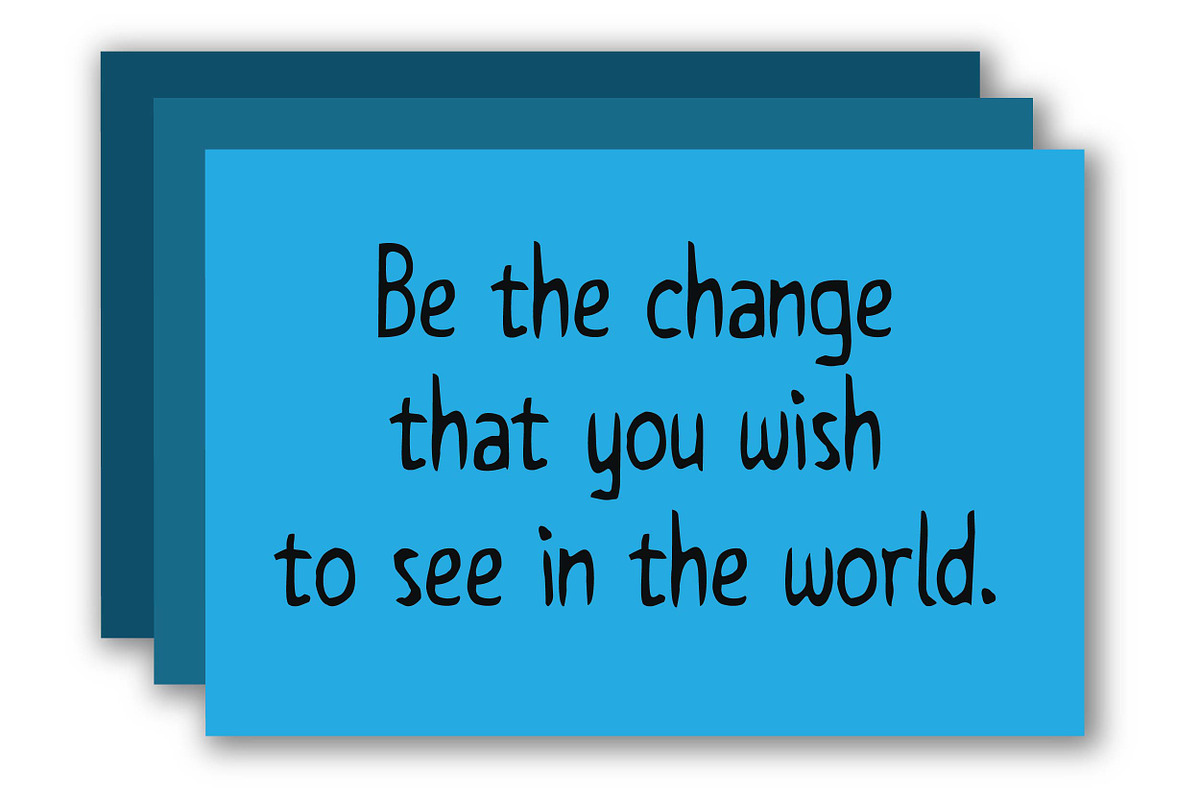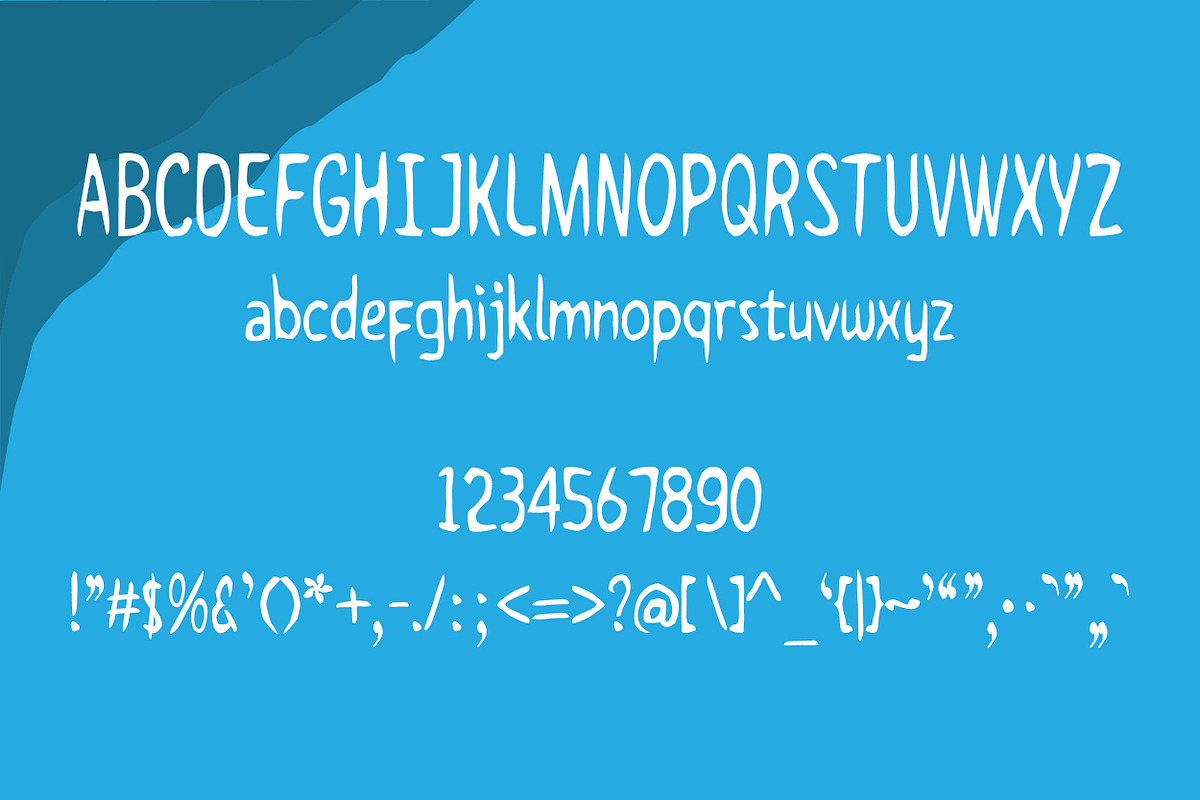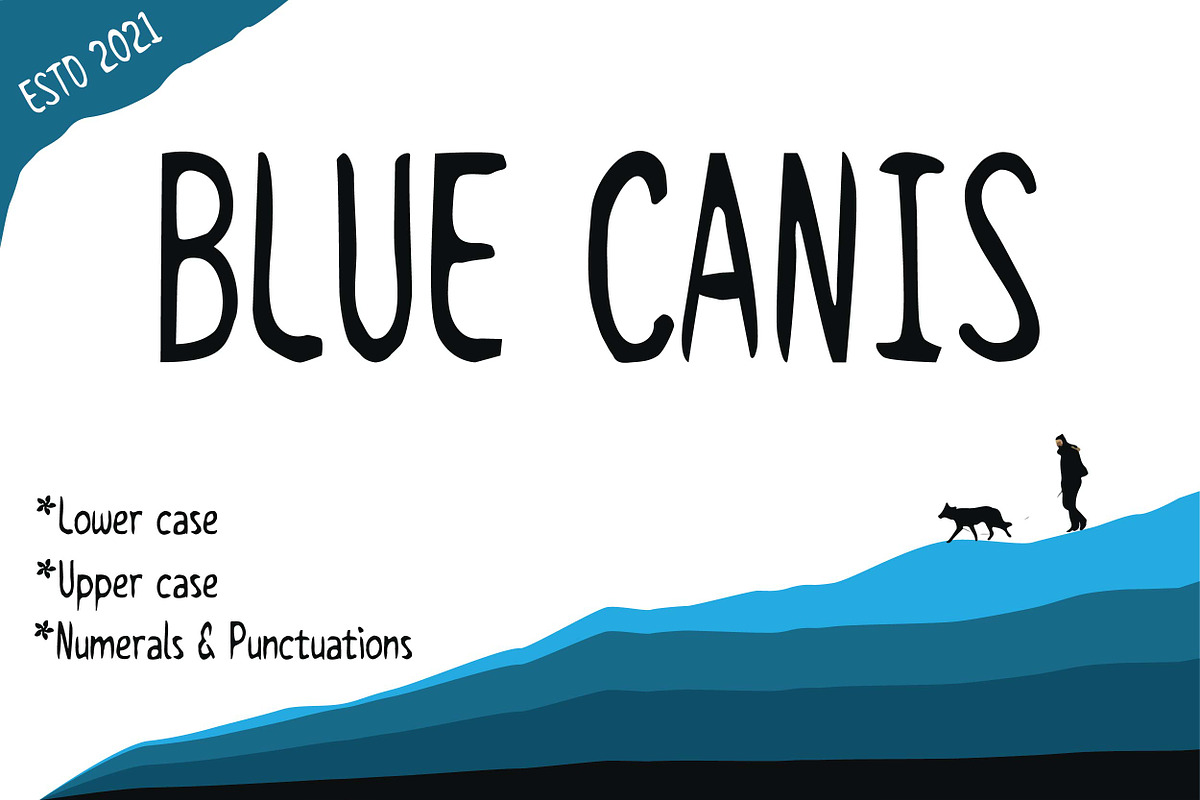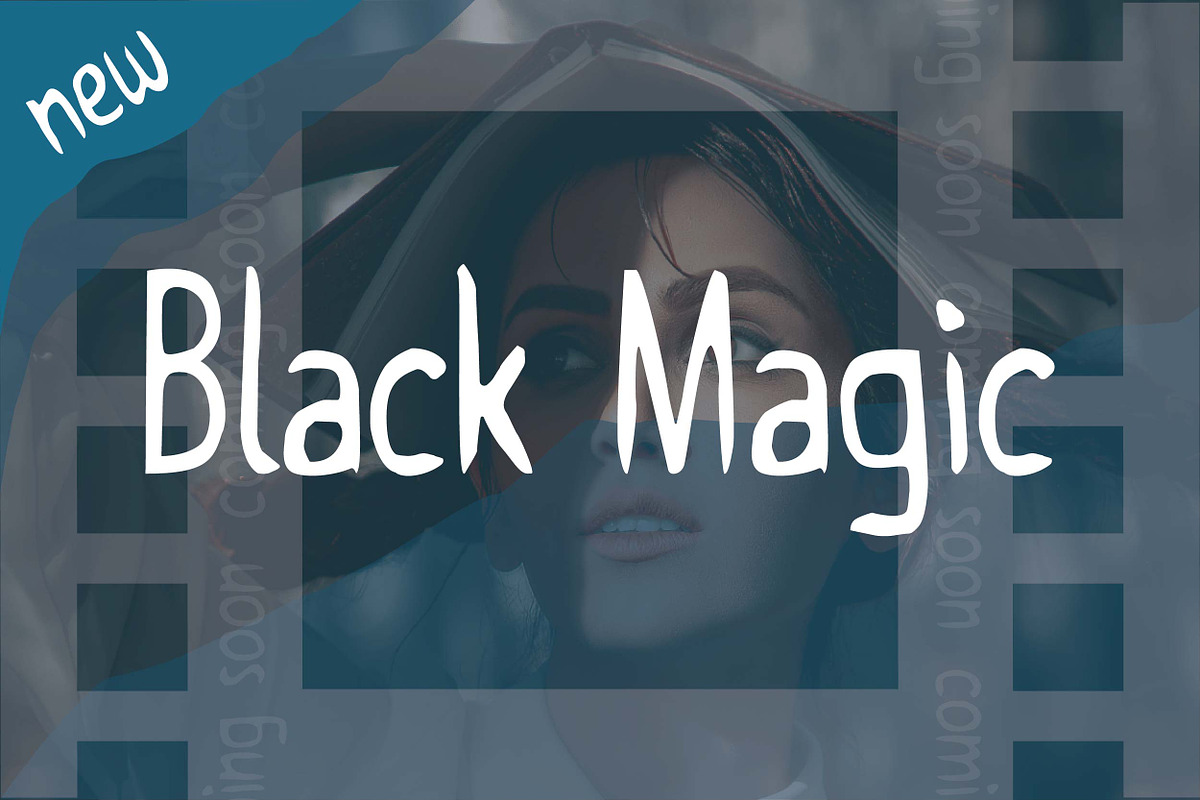
Blue Canis
Blue Canis is an attractive and cool scream font. Simple but with a strong visual effect, this font will instantly make your creation more eye-catching than others.